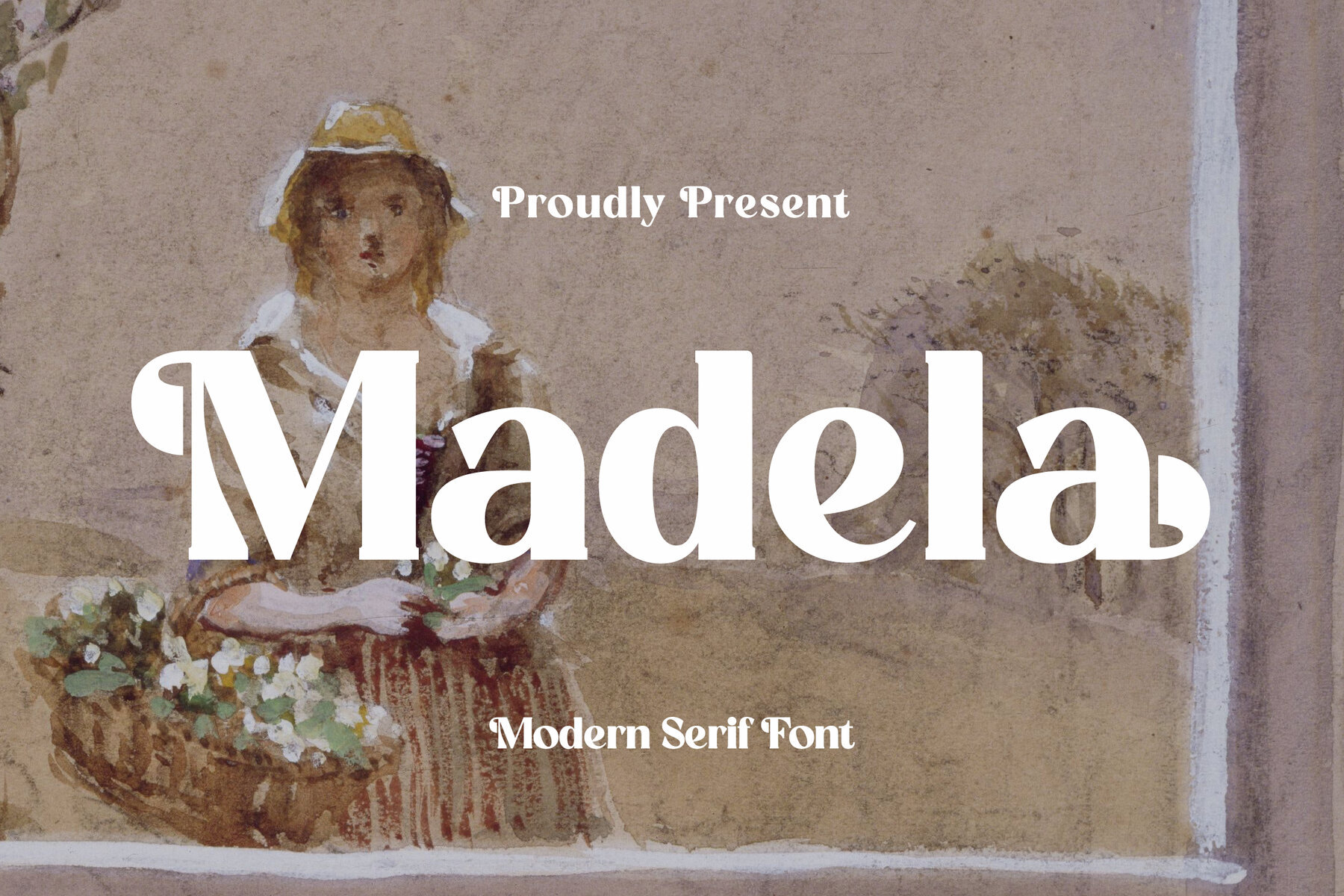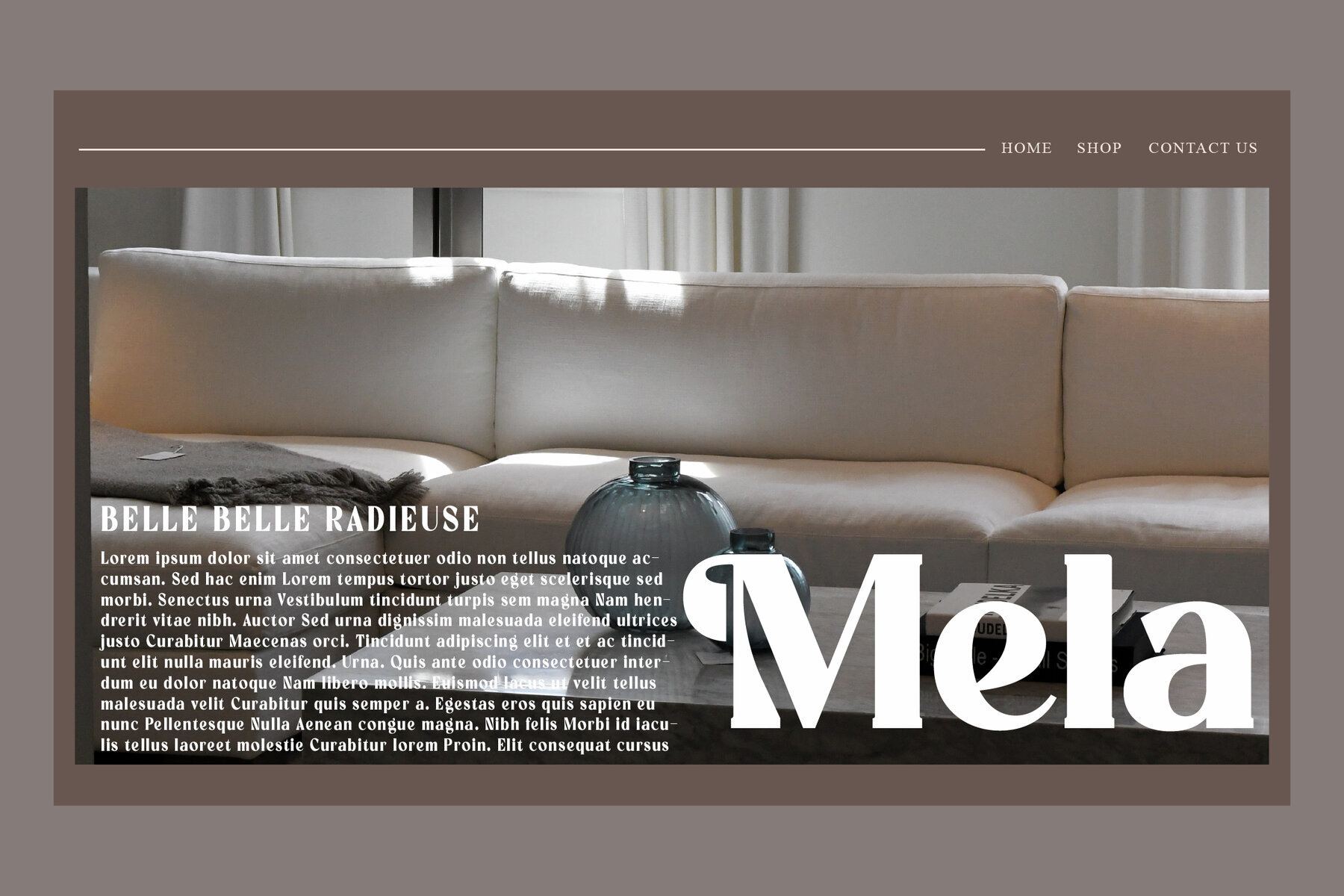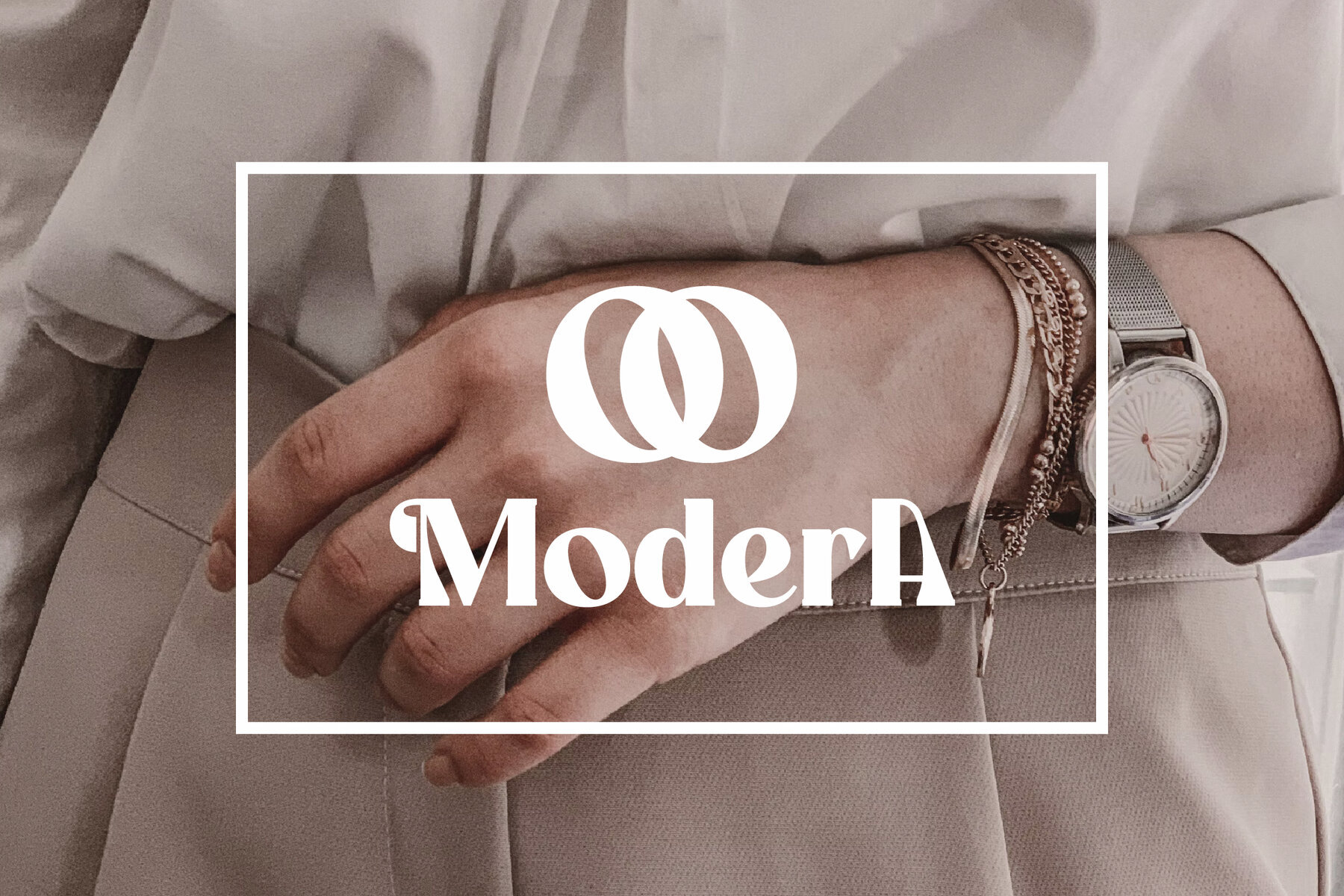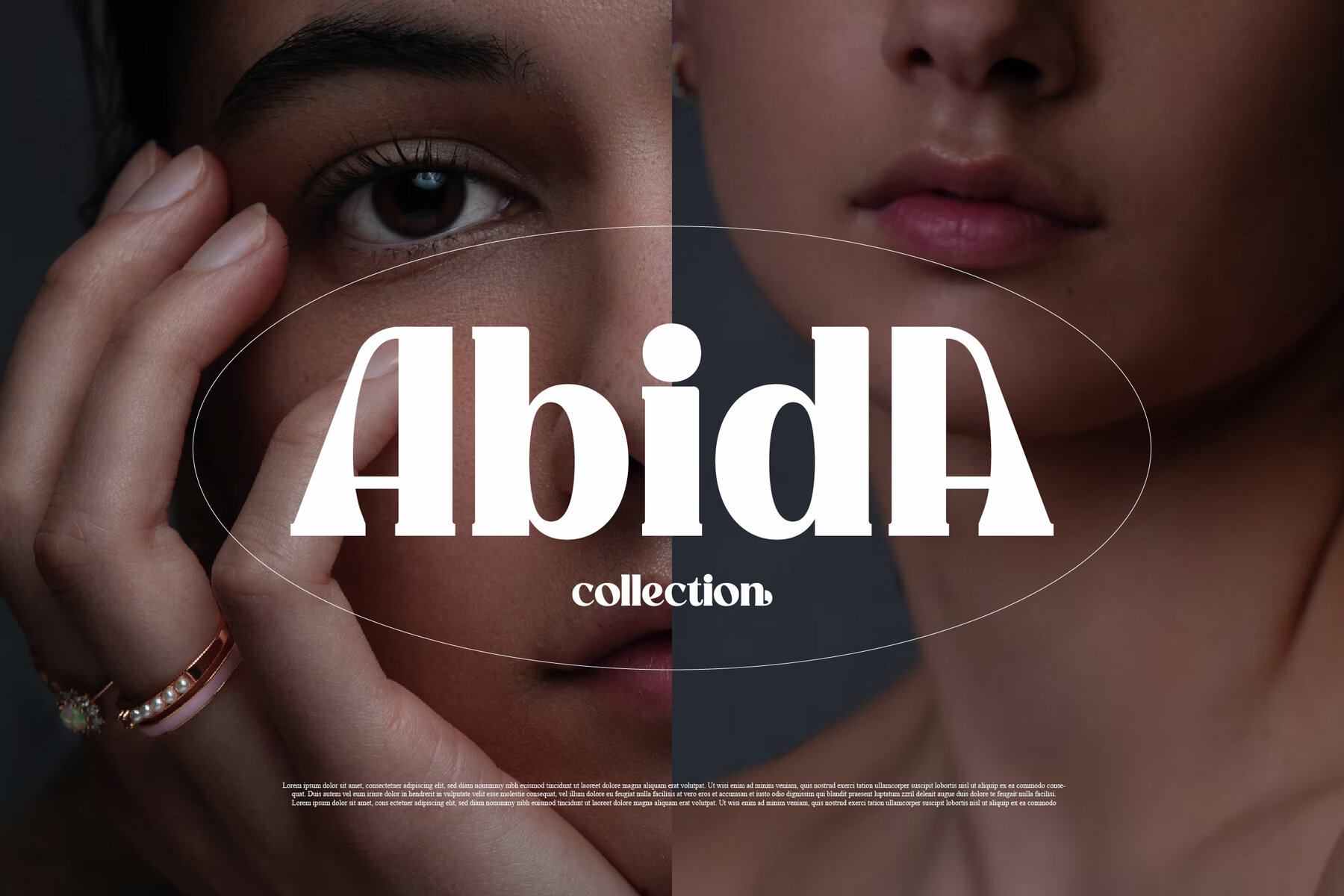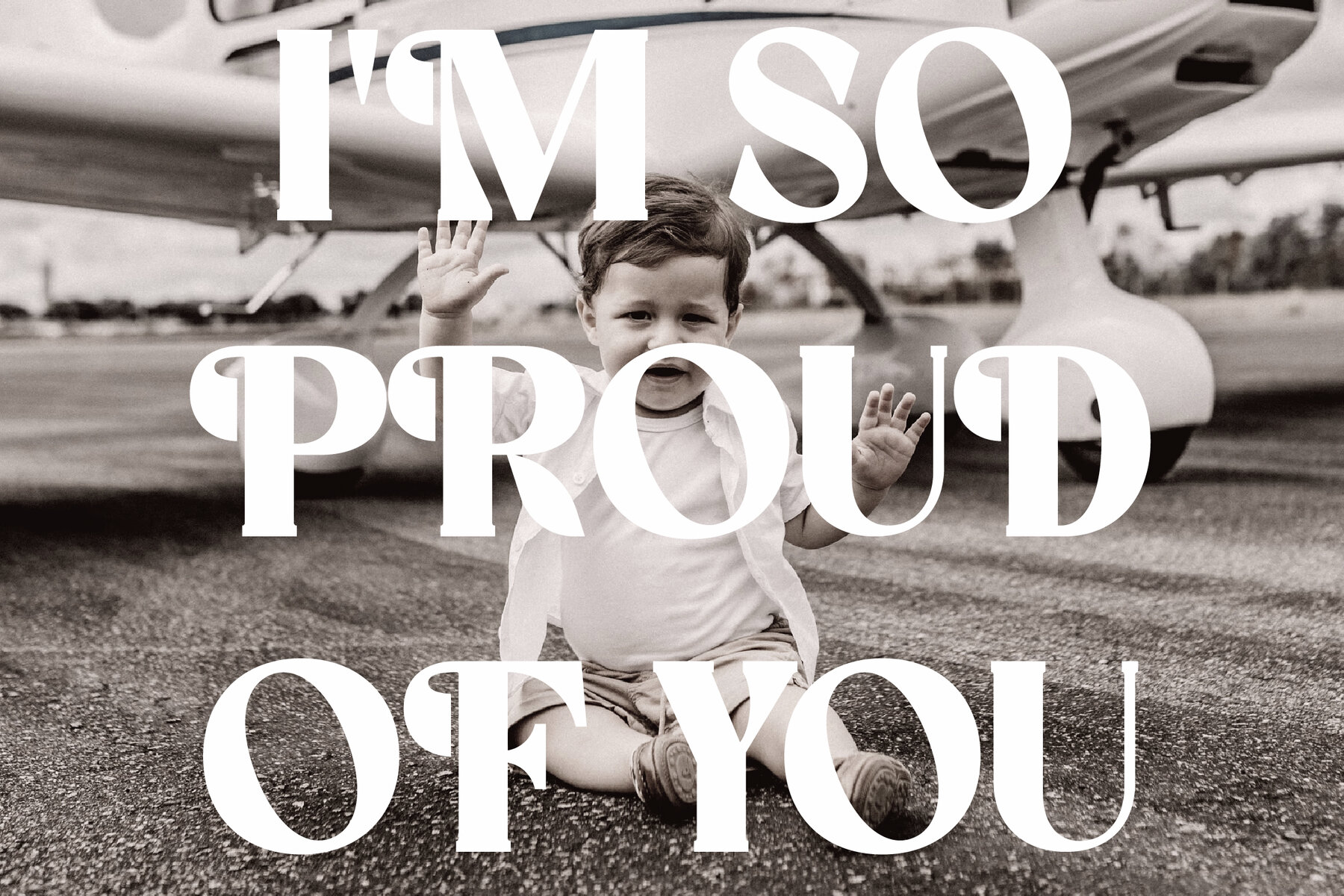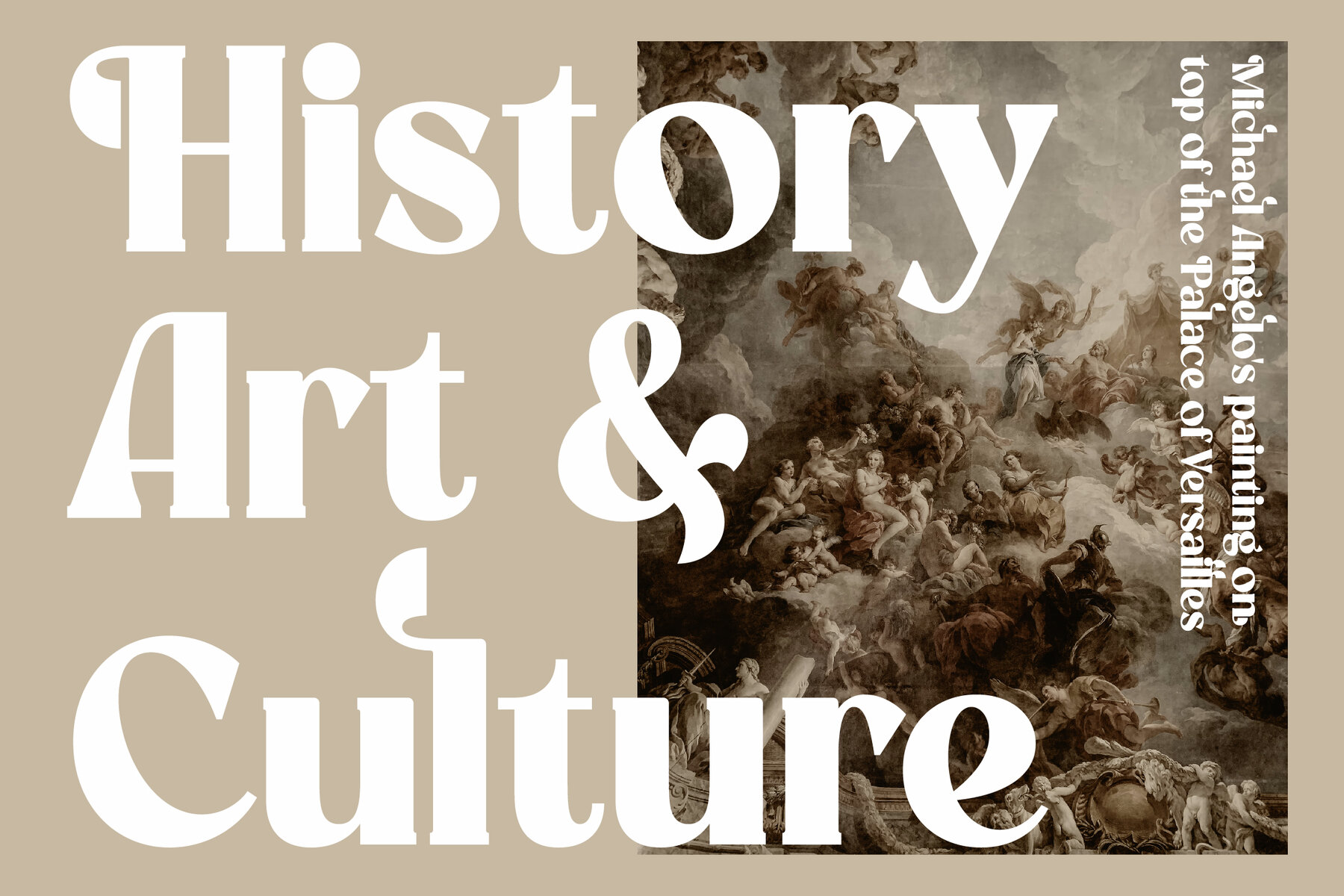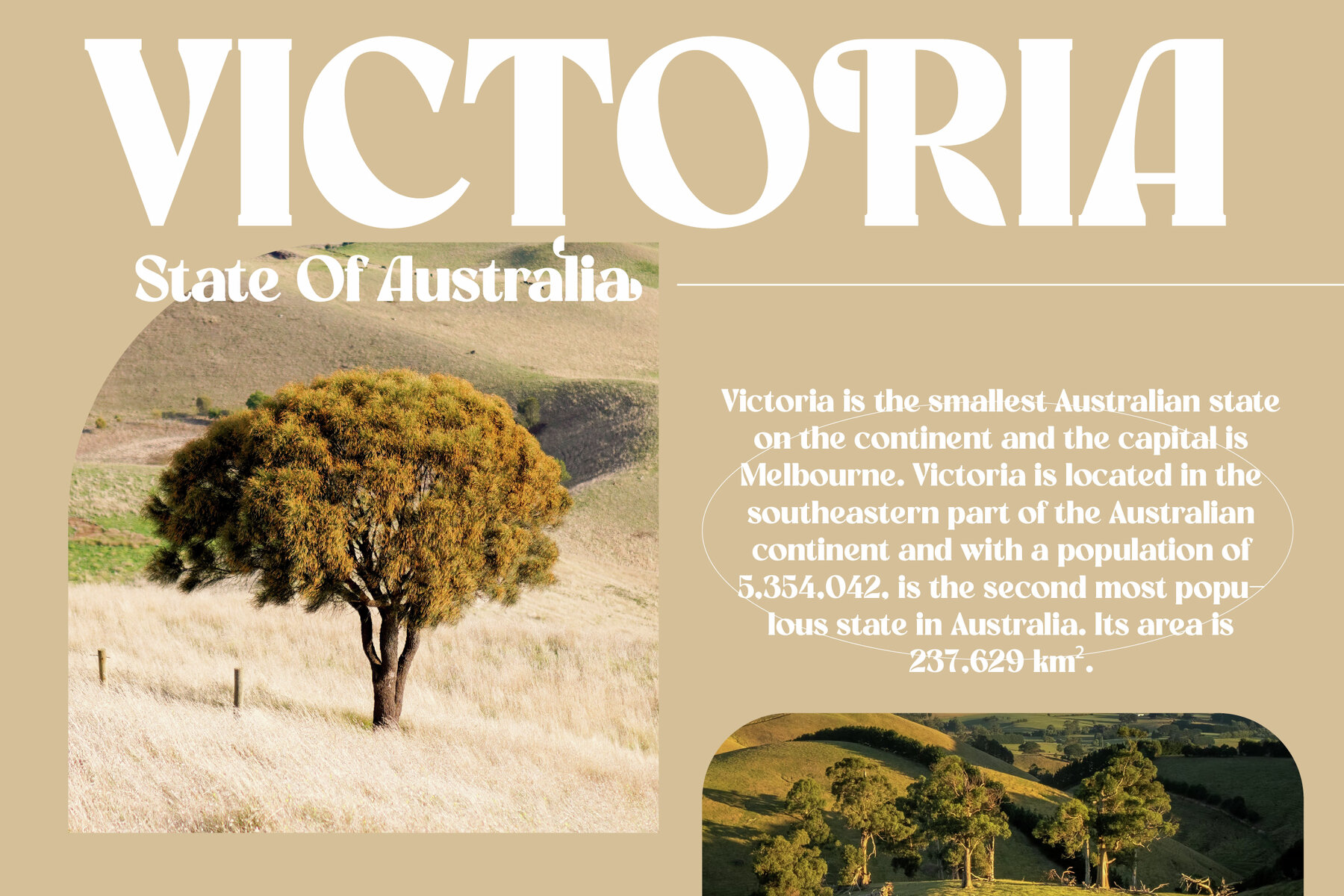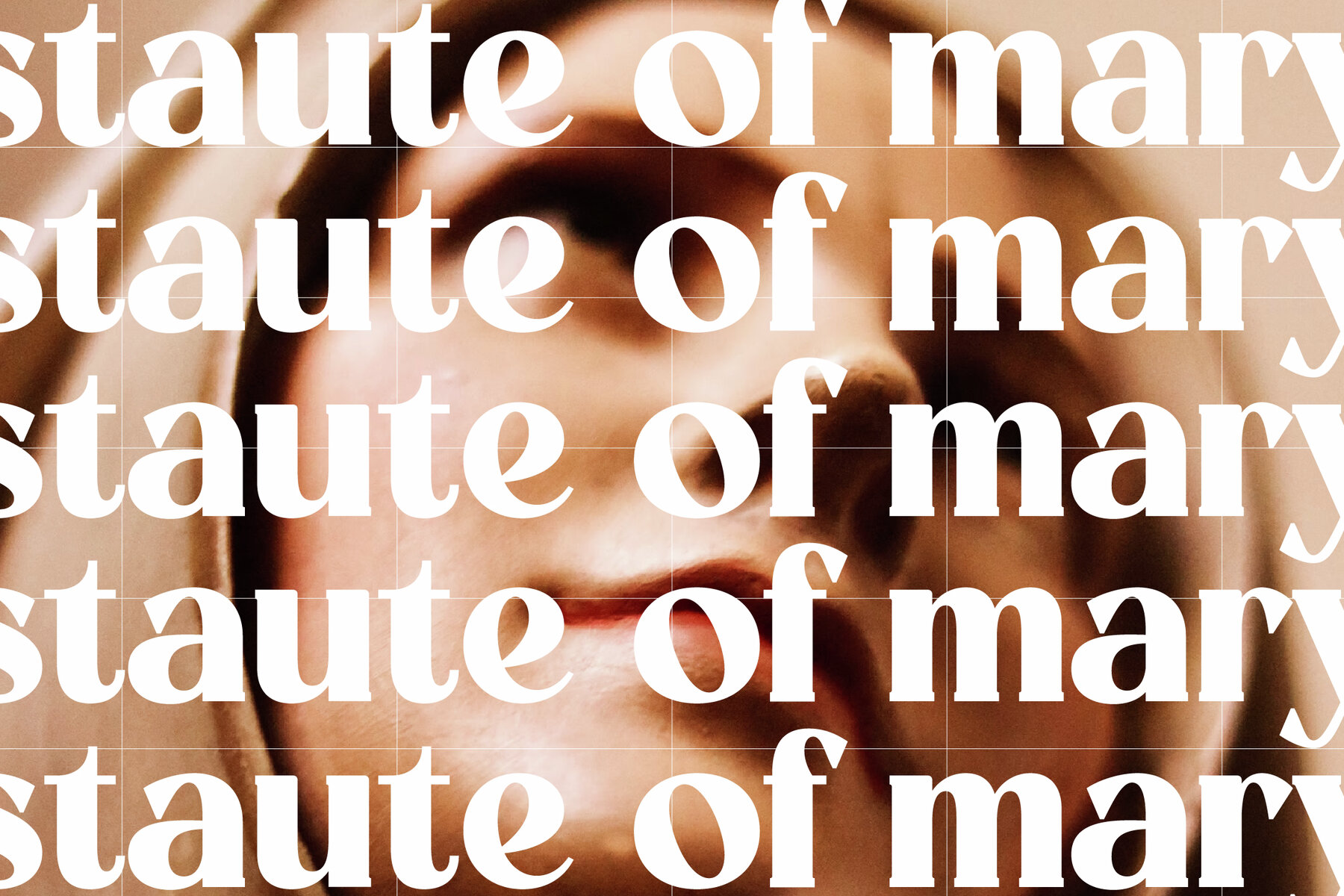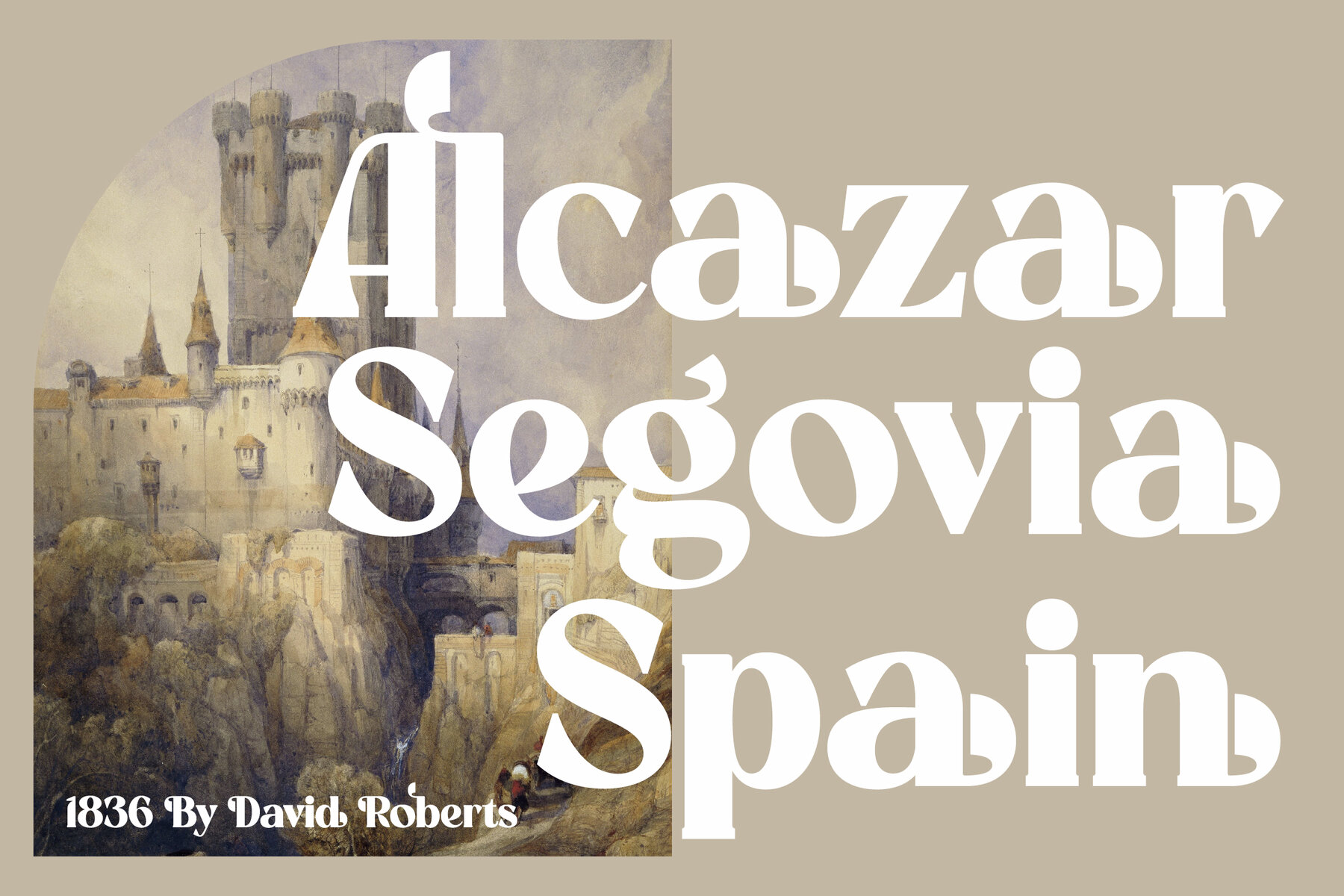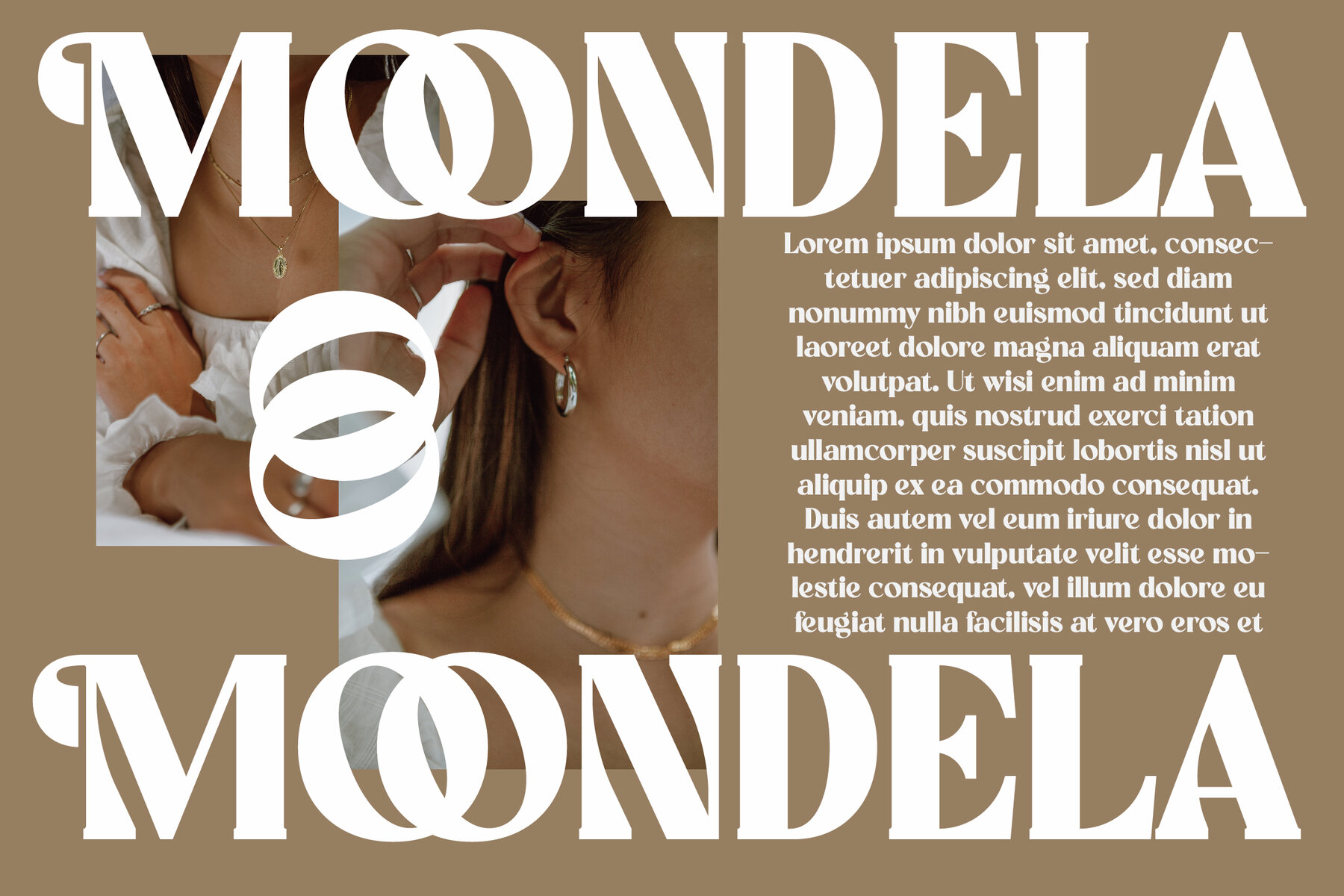
Madela Font
Madela Typeface is a modern and classic serif font, uniquely crafted for those who seek elegance and luxury in design. Its sophisticated style is ideal for logos, book and movie titles, fashion brands, magazines, and apparel design. Madela offers a touch of class to every project, making it perfect for both professional and personal use.
This typeface comes with standard glyphs, alternate letters, and ligatures to provide versatility and creativity in your designs. It is user-friendly and easily installable on both PC and Mac, compatible with popular software like Adobe Illustrator, Photoshop, InDesign, and Microsoft Word. Additionally, Madela is PUA encoded, ensuring all characters are accessible without the need for specialized design software. It also offers multilingual support, broadening its usability across different languages.